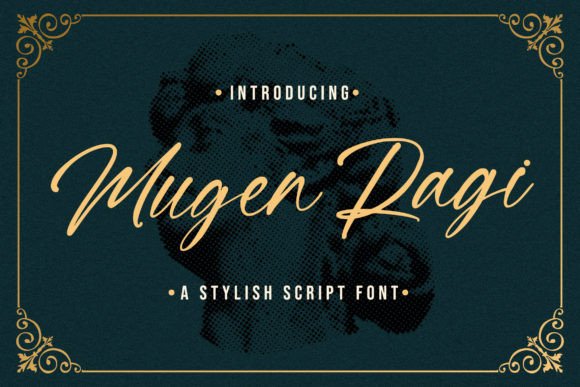
Welcome to the world of Mugen Ragi, a script font that dances with grace and flows with elegance. Let your imagination run wild with this modern masterpiece, a creation of StringLabs, designed to elevate your designs to the highest realm of creativity. Mugen Ragi is not just a font; it's an art form waiting to be unveiled on your digital canvas.
With Mugen Ragi, let your lettering tattoos take on a new life. Its bold strokes and delicate flourishes will transform your skin into an exquisite gallery of inked masterpieces. Each letter, a stroke of brilliance, will whisper stories of individuality and artistry, making you stand out from the crowd.
Dive into the realm of branding and watch as Mugen Ragi weaves its magic, leaving an unforgettable mark on your audience. Its timeless charm will elevate logos and trademarks, turning them into iconic symbols of excellence. Let Mugen Ragi be the voice of your brand, capturing hearts and minds with every stroke.
Journey into the world of wedding designs and invitations and discover the allure of Mugen Ragi. Its elegant lines and intricate details will bring a touch of sophistication and whimsy to your special day. Each invitation adorned with Mugen Ragi will be a keepsake, a tangible memory of a day filled with love and joy.
Immerse yourself in the art ofç¾å�� and let Mugen Ragi dance across the page. Its fluid lines and enchanting curves will transform your signature into a work of art, a unique expression of your personality that leaves a lasting impression wherever it appears. Mugen Ragi will make your signature an extension of your creative spirit, a symbol of your individuality.
Venture into the world of labels and logos and witness the transformative power of Mugen Ragi. Let it breathe life into your designs, adding a touch of sophistication and visual intrigue. Mugen Ragi will elevate your labels and logos, making them stand out on shelves and in the minds of consumers.
Unleash your creativity with Mugen Ragi and embark on a design journey like no other. Let its beauty captivate your audience, leaving them spellbound by the sheer brilliance of your work. Mugen Ragi is more than just a font; it's an open invitation to a world of limitless possibilities, where imagination reigns supreme.